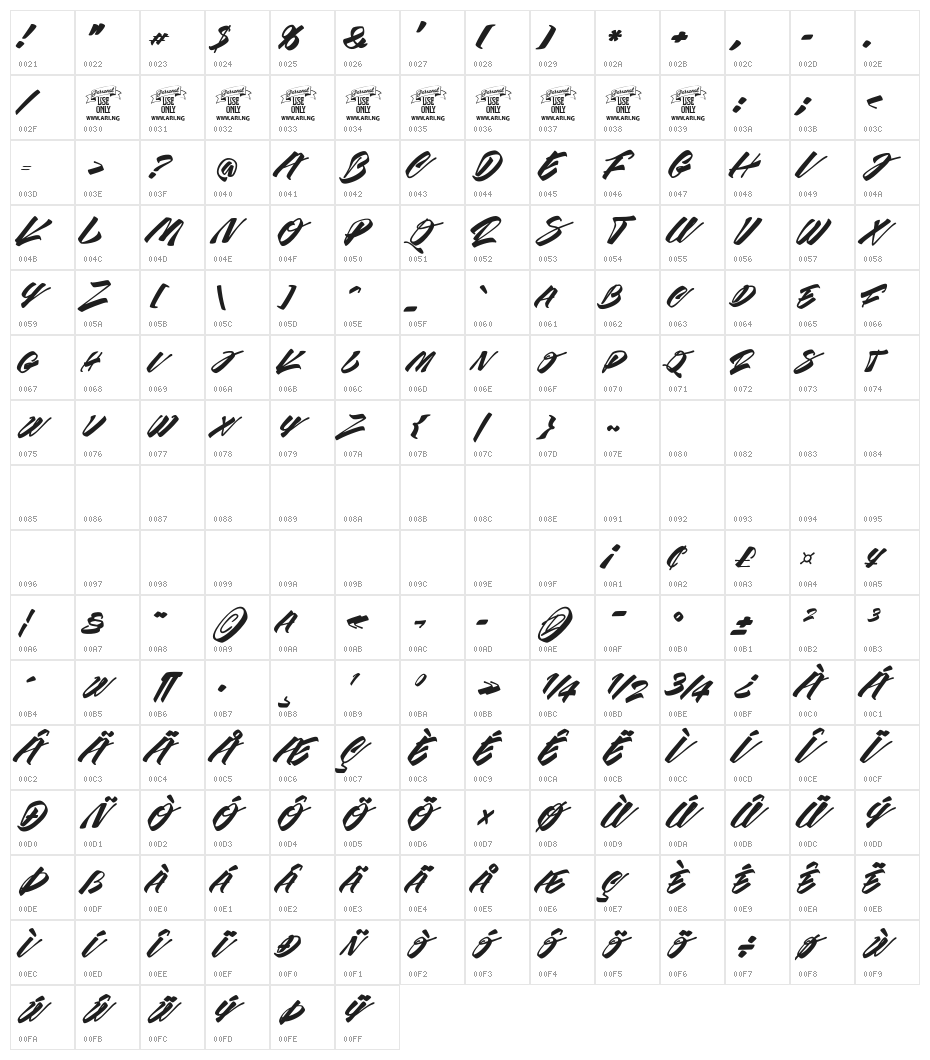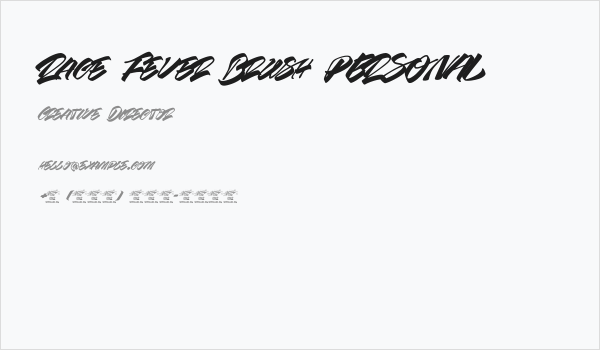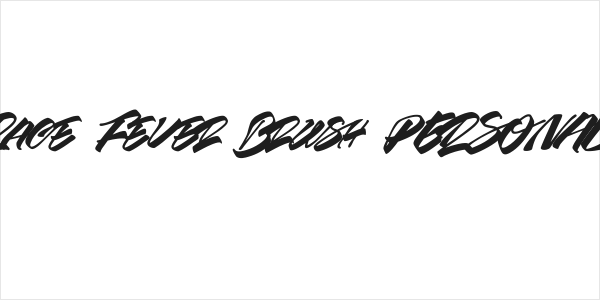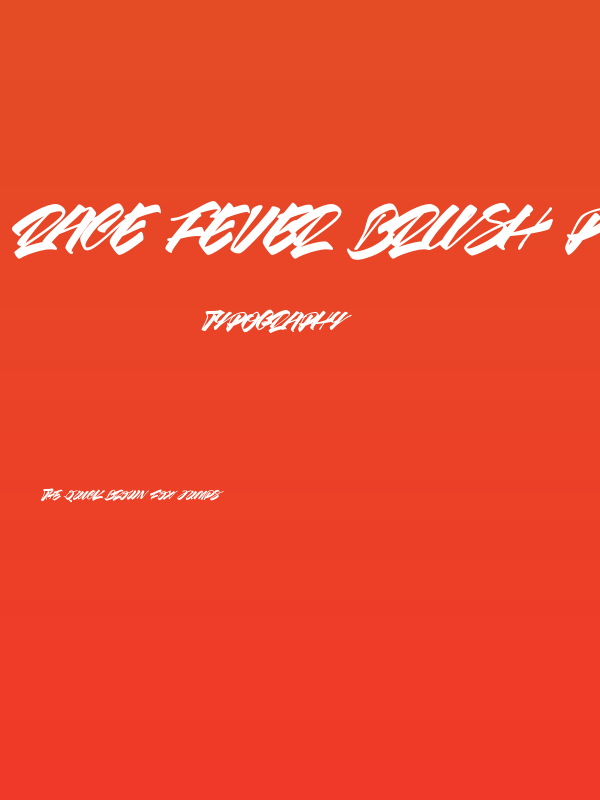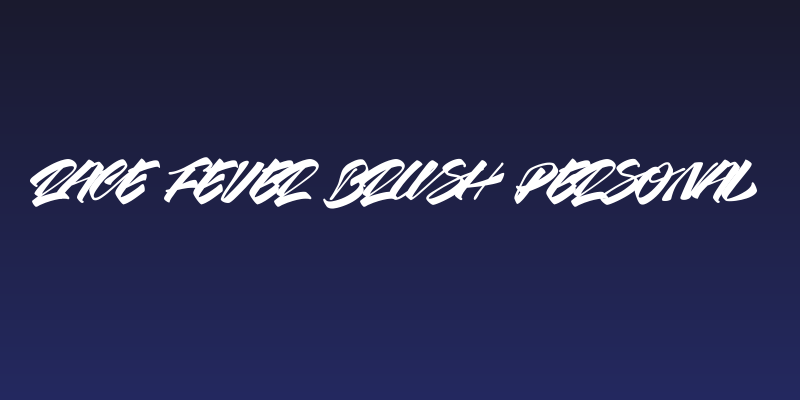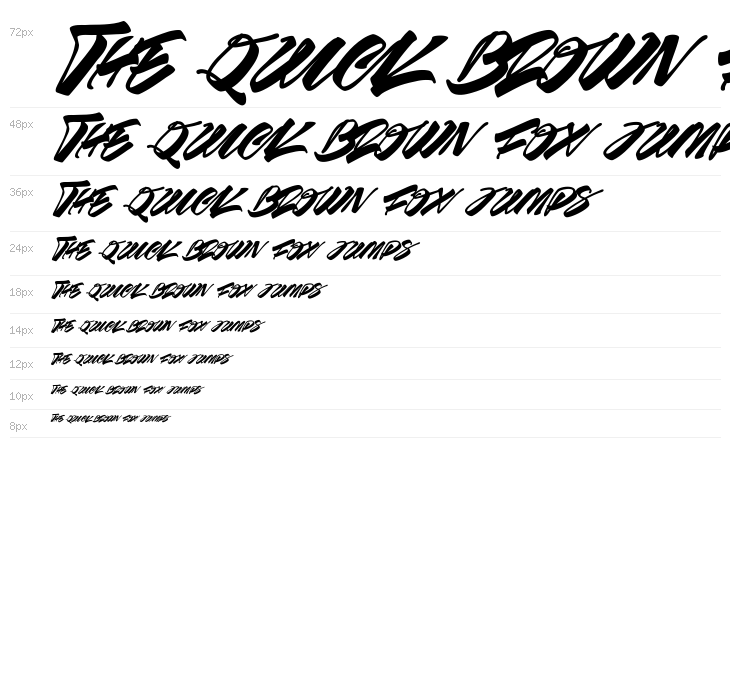
Race Fever Brush PERSONAL Font
Race Fever Brush PERSONAL Description
This font exhibits a bold and dynamic brush style, characterized by its energetic and fluid strokes. The uppercase and lowercase letters maintain a consistent slant, giving the text a sense of motion and speed. The characters are closely spaced, enhancing the compact and impactful appearance. The strokes are thick and varied, providing a high contrast that adds to the font's dramatic flair. This style is reminiscent of hand-painted signage, making it ideal for projects that require a personal and artistic touch. The font's expressive nature makes it suitable for creative and informal applications.